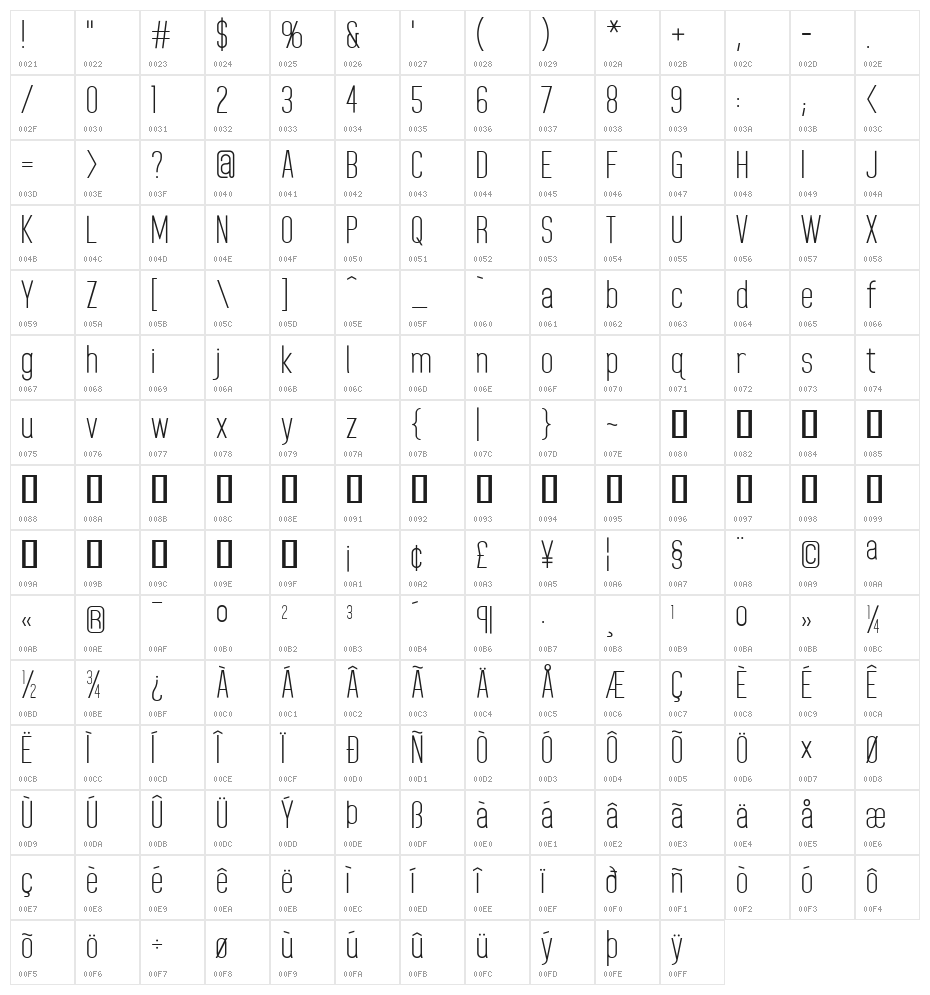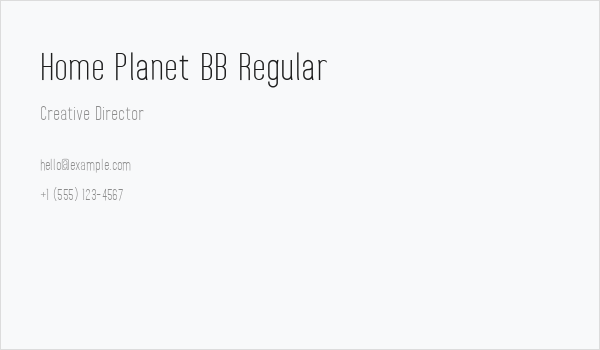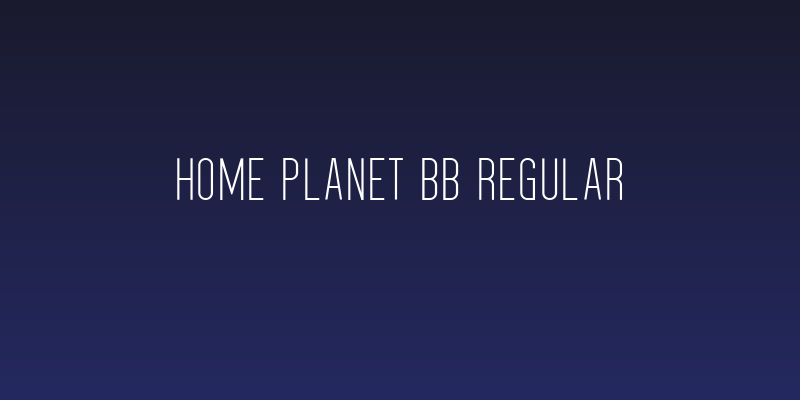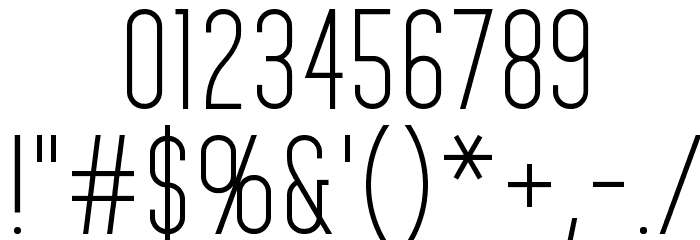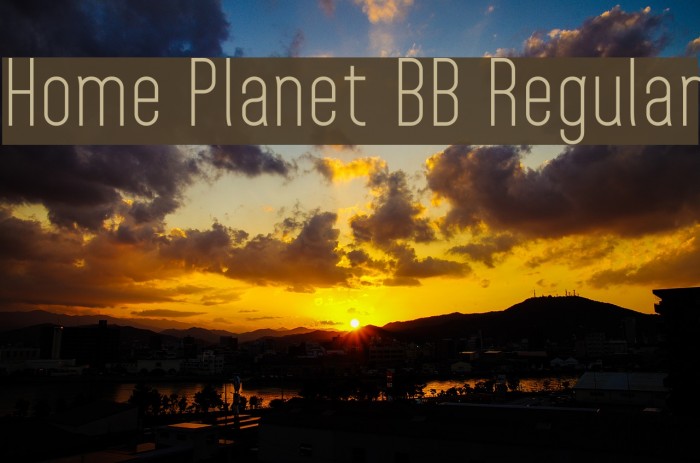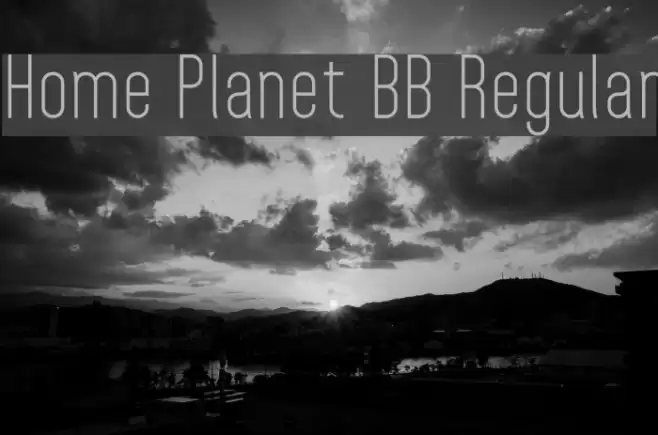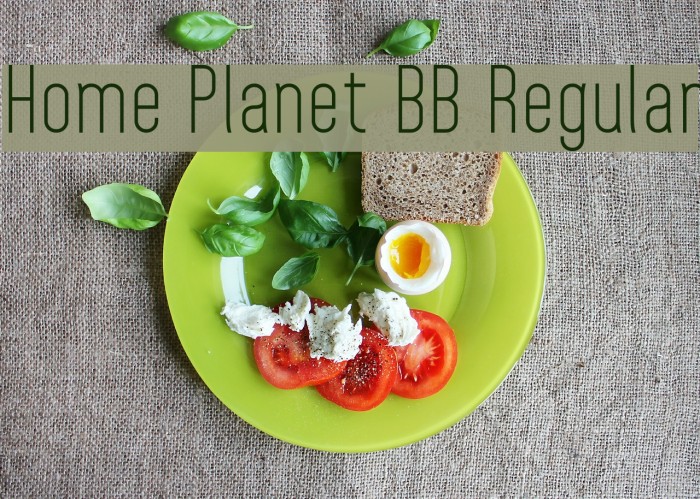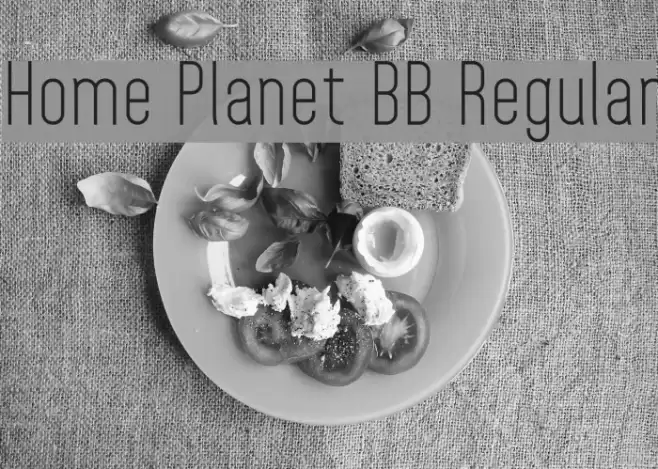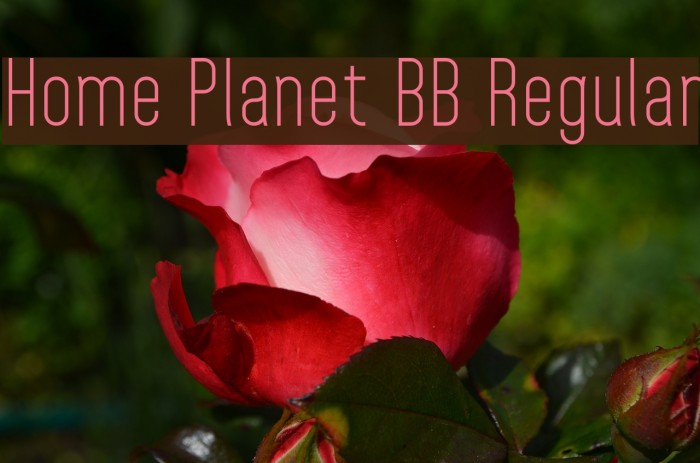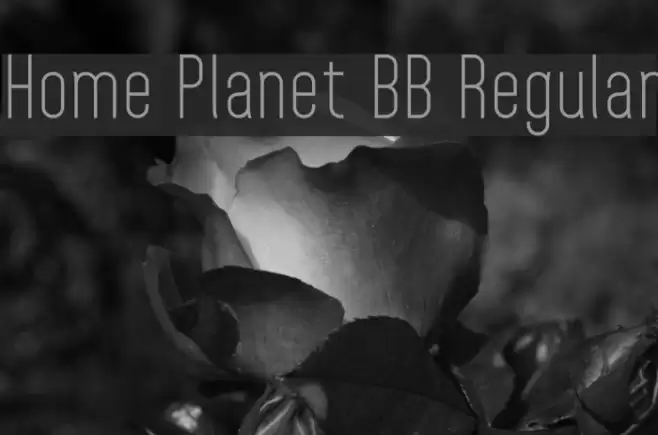
Home Planet BB Regular Font
This font features a clean and modern sans-serif design, characterized by its tall, narrow letterforms and consistent stroke width. The uppercase and lowercase letters maintain a uniform height, contributing to a sleek and streamlined appearance. The numerals and special characters are designed to complement the alphabet, offering a cohesive look across all characters. The font's simplicity and clarity make it highly legible, suitable for a variety of applications where readability is key.
| Proposed Projects | Ideal for use in digital interfaces, minimalist branding, editorial layouts, and signage where clarity and modernity are desired. |